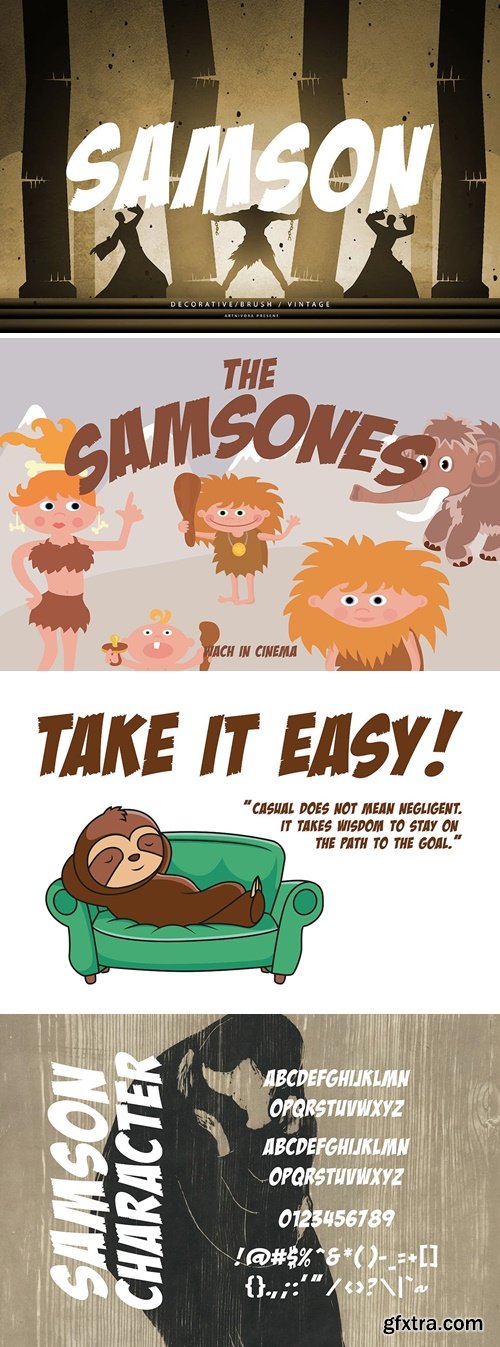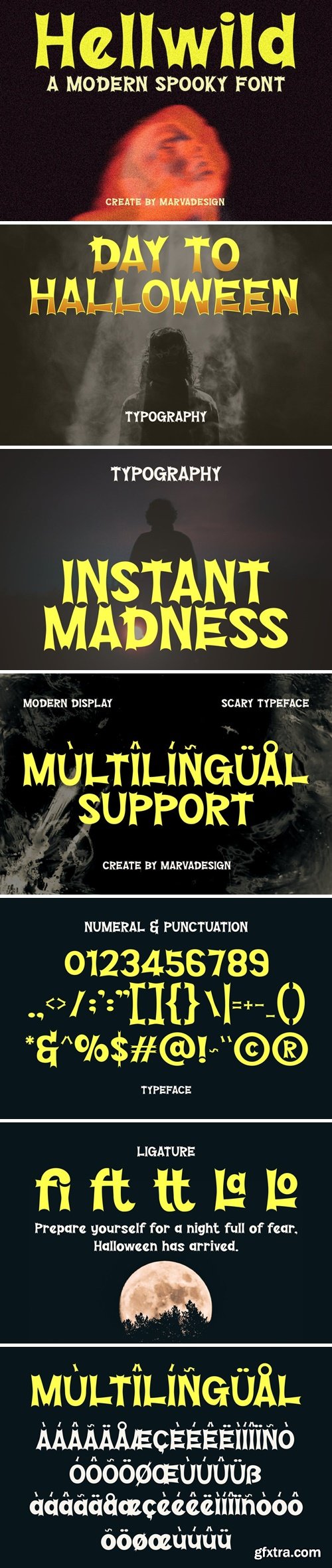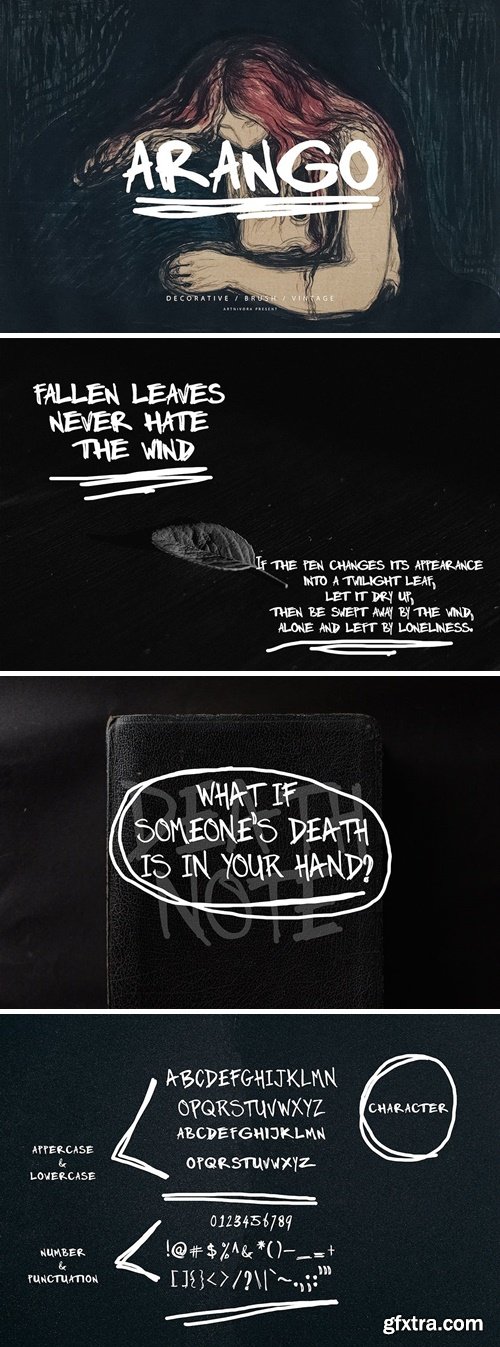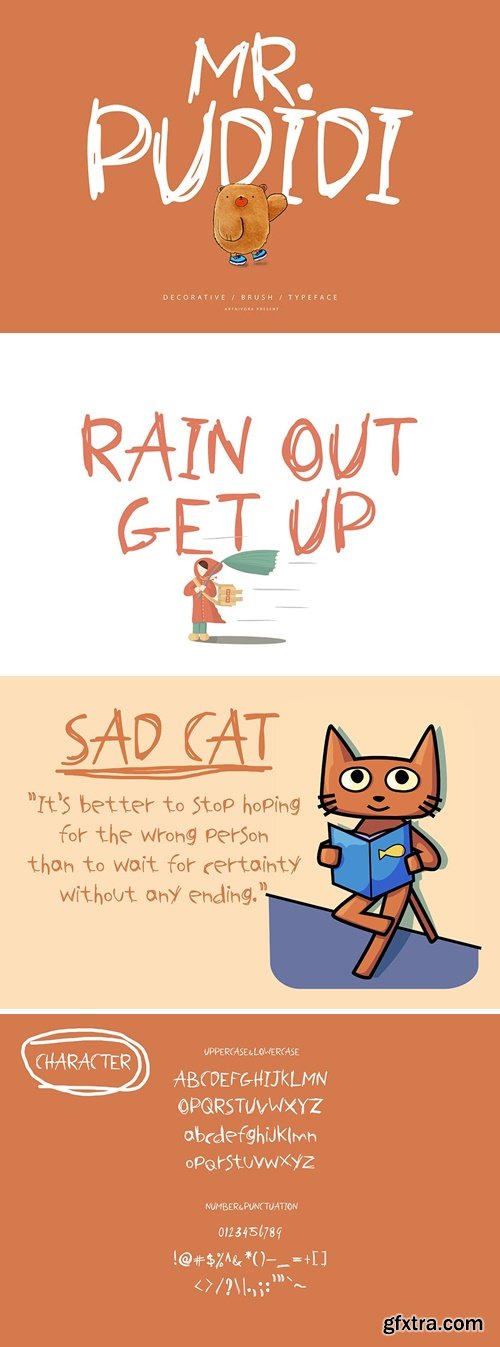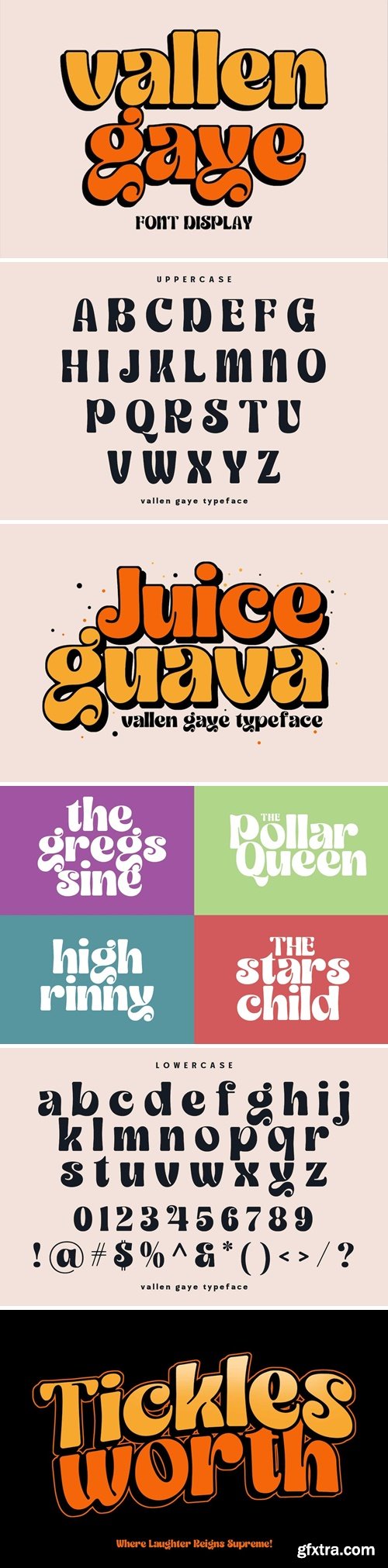
Introducing the new Gravita Typeface!!! Gravita is a luxury and glamour serif typeface. This font is both modern and nostalgic and works great for logos, magazine, social media. Already matched up and ready to be used together for your next design! For those of you who are needing a touch of elegant, stylish, classy, chic and modernity for your designs, this font was created for you! Perfect for editorial projects, Logo design, Clothing Branding, product packaging, magazine headers, or simply as a stylish text overlay to any background image.
Introducing our new Benfika, modern serif font with elegant style this is perfect for branding, logos, invitation, magazines, product packaging and more.
Kalgista is a modern condensed concave serif display font. Bold stroke, fun character with a bit of ligatures and alternates. To give you an extra creative work. Kalgista font support multilingual more than 100+ language. This font is good for logo design, Social media, Movie Titles, Books Titles, a short text even a long text letter and good for your secondary text font with script or serif. Make a stunning work with Kalgista font.
Hi Ladies and Gentleman ! Proudly present a elegant ligature serif font “Helison”, by rantautype. Helison - a modern & strong display serif with unique curved shape. All character had been carefully crafted look retro and more nostalgia. We keep this font looks fashionable, modern, luxury, premium, catchy and easy to use. Perfectly suitable for creating elegant, chic, lifestyle design such as logos, title, cover, branding, display and magazine, and more. Now you have more choice when using Helison for typography. Helison here to make your work to high level!!!
Merchy is a Bold Slab Serif display font. Bold stroke, fun character with a bit of ligatures and alternates. To give you an extra creative work. Merchy font support multilingual more than 100+ language. This font is good for logo design, Social media, Movie Titles, Books Titles, a short text even a long text letter and good for your secondary text font with script or serif. Make a stunning work with Merchy font.
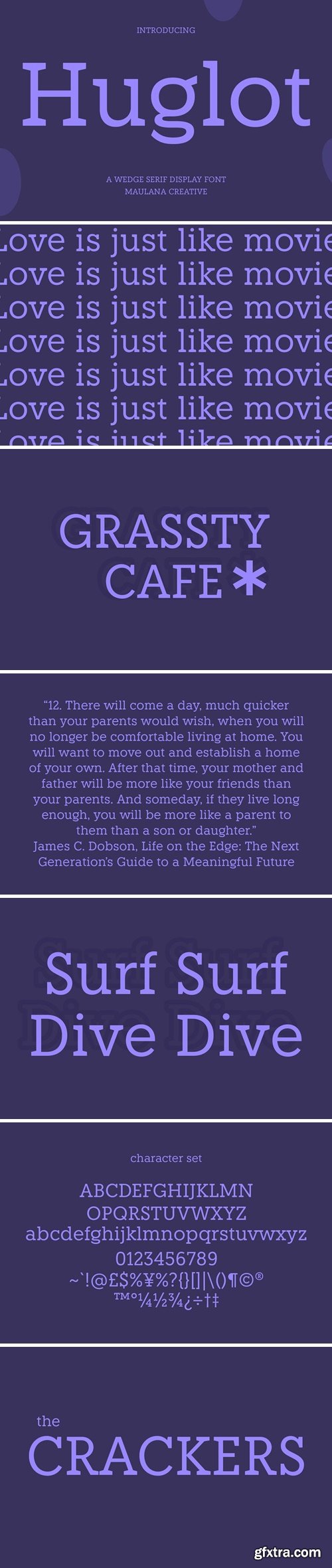
Huglot is a modern wedge serif display font. Medium stroke, fun character with a bit of ligatures and alternates. To give you an extra creative work. Huglot font support multilingual more than 100+ language. This font is good for logo design, Social media, Movie Titles, Books Titles, a short text even a long text letter and good for your secondary text font with script or serif. Make a stunning work with Huglot font.
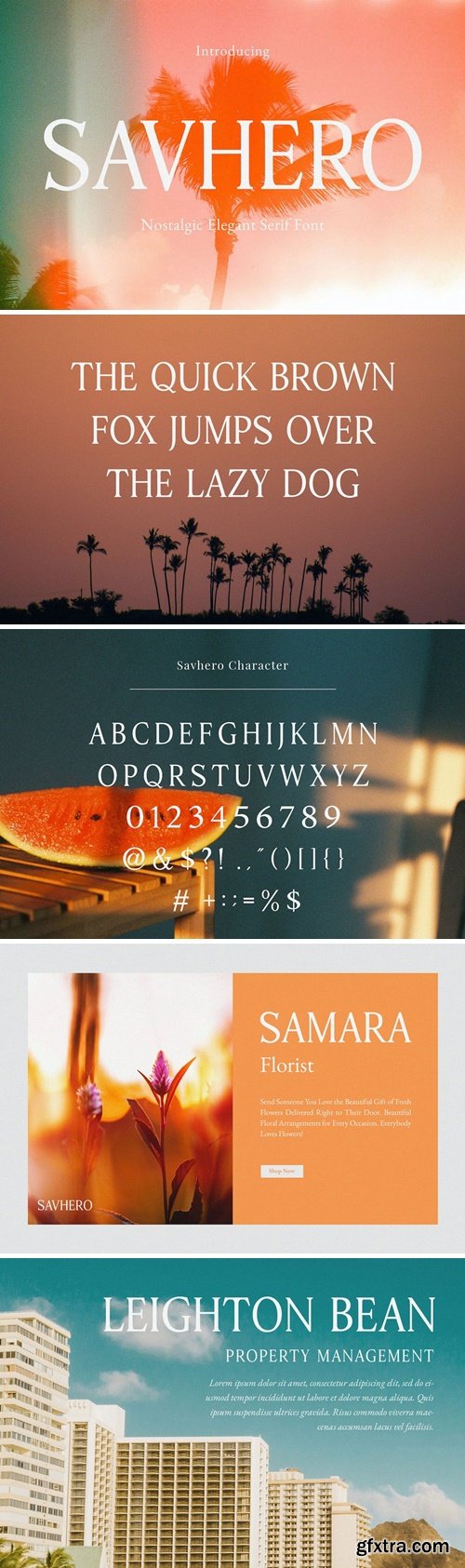
Introducing our new Savhero, modern serif font with elegant style this is perfect for branding, logos, invitation, magazines, product packaging and more.
inspired by the famous minimalist logo perfect for the purposes of designing templates, brochures, videos, advertising branding, logos, invitation, layout design, elegant crafting, beauty design and other
A font with a modern style based on a minimalist monoline shape that is touched in a modern and elegant style. This font is perfect for a variety of creative needs such as printing, books, titles, headlines, photography, embellishments, branding, logos, and more.
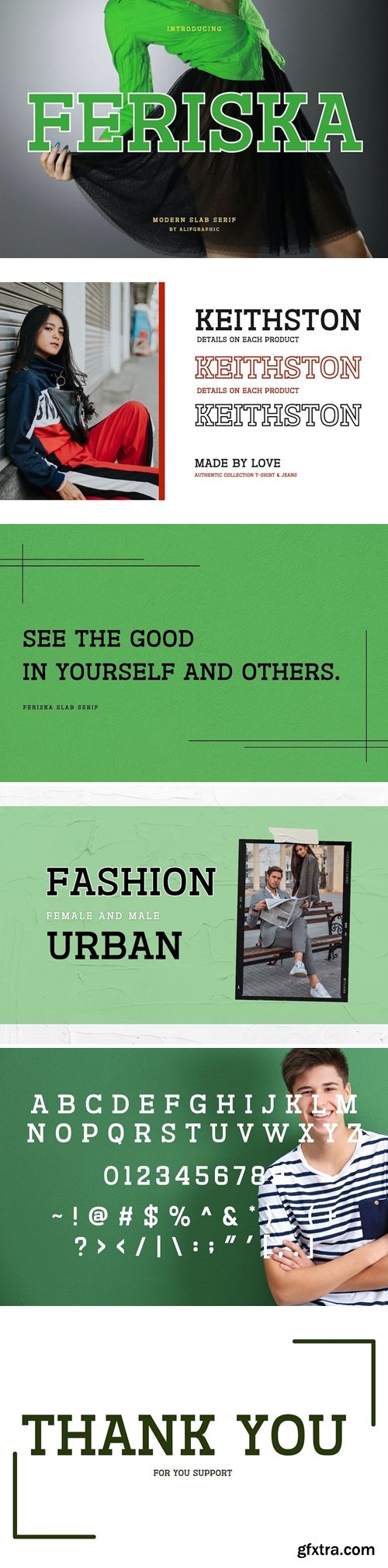
A beautiful series of letters is encapsulated in this 'FERISKA' font. Neat lettering is perfect for writing needs that are modern and pleasing to the eye, there is a modern impression but still looks elegant when used for writing. Tidiness in the manufacture of each letter, is our top priority. You can have fun and be creative using this font product we made, because the results will definitely be very satisfying.
Nessyn Centry will perfect for many project: book, magazines, logo, branding, photography, quotes, blog header, poster, advertisements, etc.
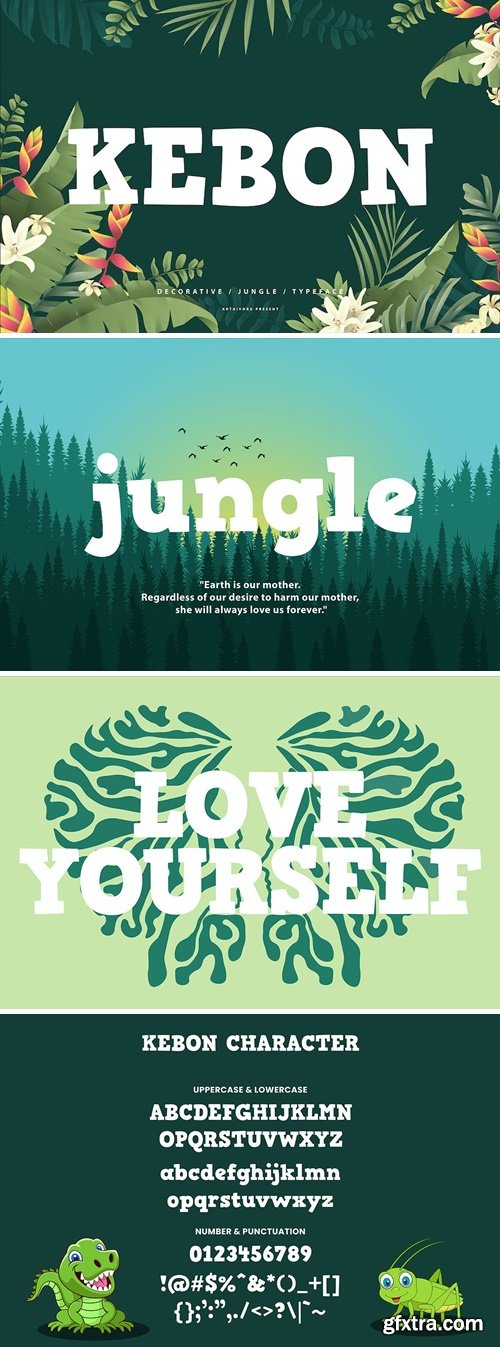
Introducing Kebon, a simple and decorative font. So perfect for you who needs a typeface for logo designs, magazine, social media, brochure, and many more.
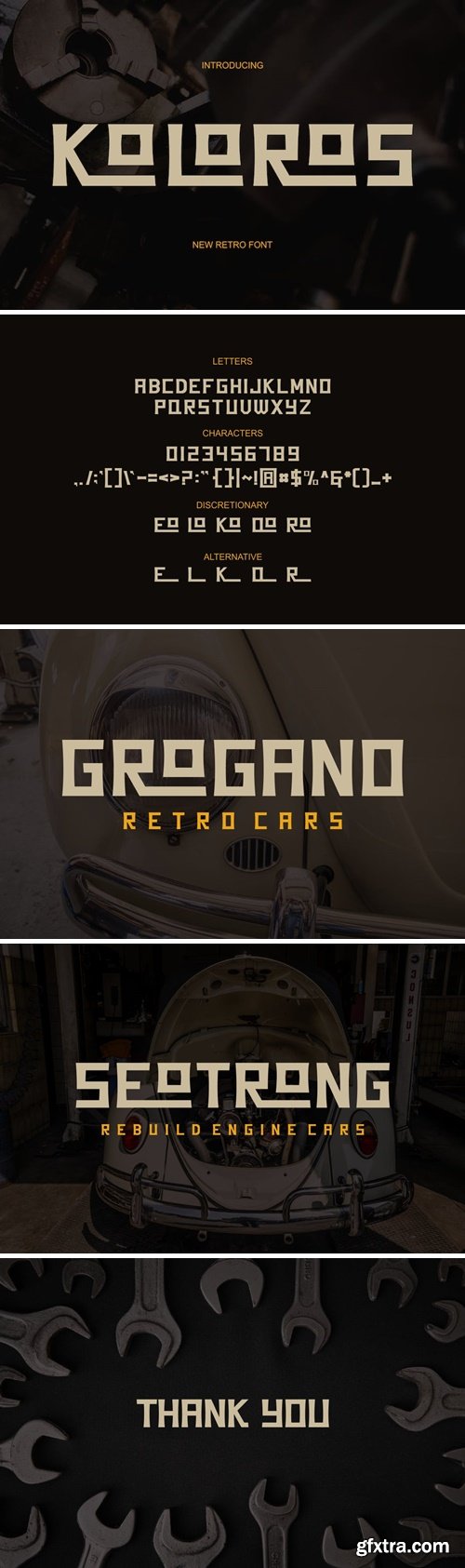
Introducing our new product Koloros Font - Modern Font is a bold and authentic display font. The font is suitable for any branding project like logo, esport, and many more. outstanding in a wide range of contexts.
Spaclar is a captivating display font with a game-themed design, featuring uppercase letters with consistent proportions and rectangular shapes with sharp corners. This font shows uppercase letters with uniform proportions, ensuring a clean and balanced visual experience. Each character maintains the same size and shape, resulting in a cohesive and harmonious composition. This design choice creates a sense of order and precision, reflecting the strategic nature of gaming. The rectangular shapes with sharp corners in Spaclar add a modern and futuristic touch to the font. The clean lines and defined angles exude a sense of sleekness and sophistication, reminiscent of advanced technology and sci-fi aesthetics. This unique feature adds an element of visual intrigue, making this font the perfect choice for game-related designs that embrace a cutting-edge atmosphere. For the best legibility you can use it in the bigger text. Enjoy the available features here.
Mirage Against is a Modern elegant serif typeface with Unique alternative , multilingual support with perfect kerning. This typeface is perfect for an elegant & luxury logo , classy editorial design, women's magazine, fashion brand , cosmetic brand, fashion promotion , modern advertising design, invitation card, art quote, home decoration , book/cover titles, special events, Advertising and much more.